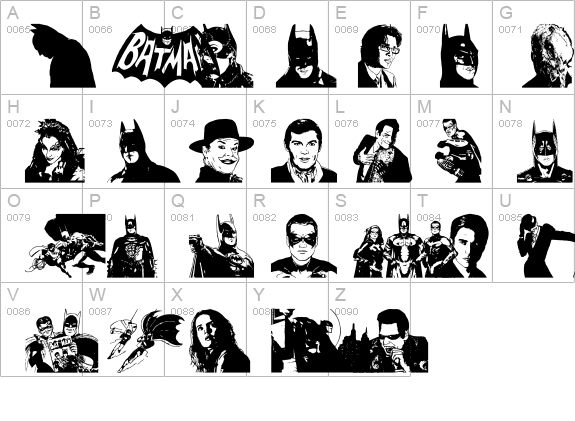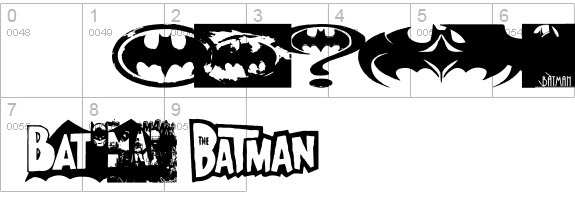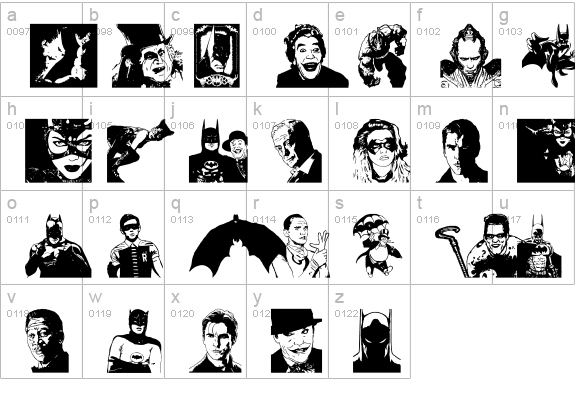
Batman The Dark Knight Font Details
Introducing the Batman The Dark Knight font, a captivating and edgy typeface that brings the iconic Gotham City to life. Inspired by the legendary comic book hero, this font exudes a sense of mystery, strength, and relentless determination, perfectly capturing the essence of the Dark Knight himself. Crafted with meticulous attention to detail, the Batman The Dark Knight font features bold, sharp edges that command attention and evoke a sense of power. Its sleek and modern design is reminiscent of the bat signal shining brightly against the night sky, instantly recognizable to fans and enthusiasts alike. This extraordinary font is not only visually striking but also highly versatile, allowing you to create stunning designs for a variety of projects. Whether you're working on a poster, logo, title sequence, or website, the Batman The Dark Knight font will add a touch of superheroic flair that is sure to impress. What's even more remarkable is that this exceptional font is available for free! That's right, you can freely download the Batman The Dark Knight font at FontsMarket.com. We believe that creativity should be accessible to all, and that's why we have made this incredible typeface accessible to everyone who wants to bring a touch of Gotham City into their designs. So why wait? Unleash your inner hero and download the Batman The Dark Knight font today. With its bold presence and captivating style, it's guaranteed to make a powerful impact on your design projects. Get ready to embark on an extraordinary typographic journey through the shadows of Gotham City, with the Batman The Dark Knight font leading the way.